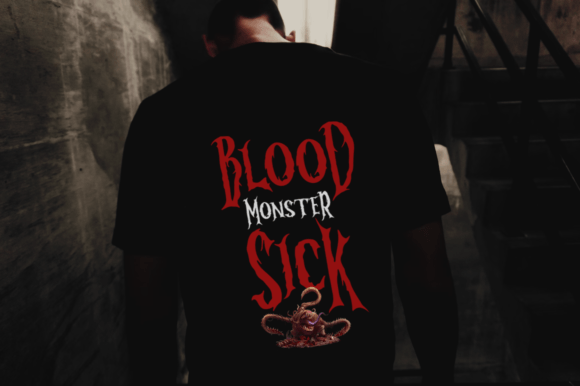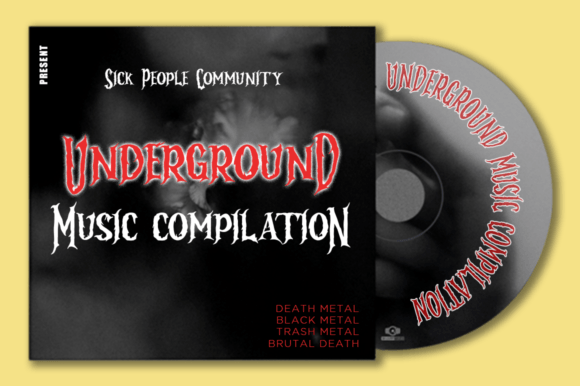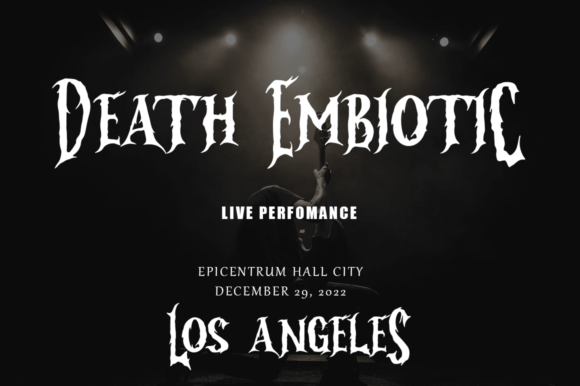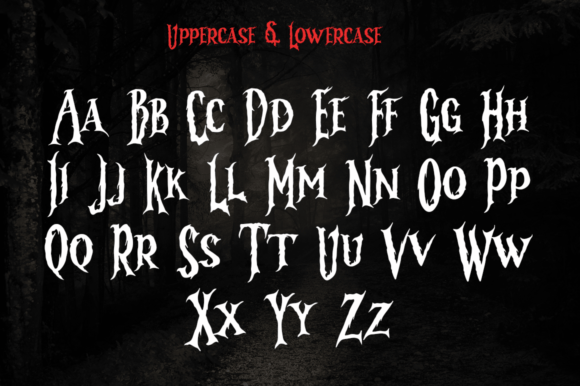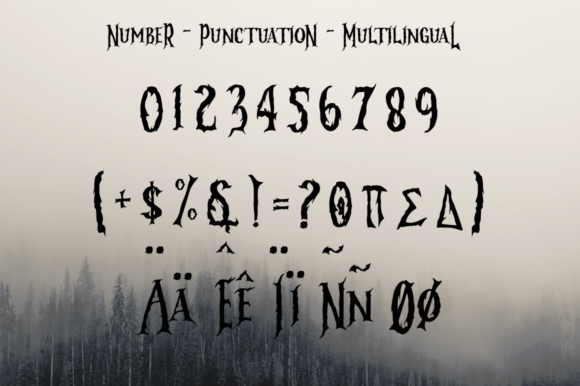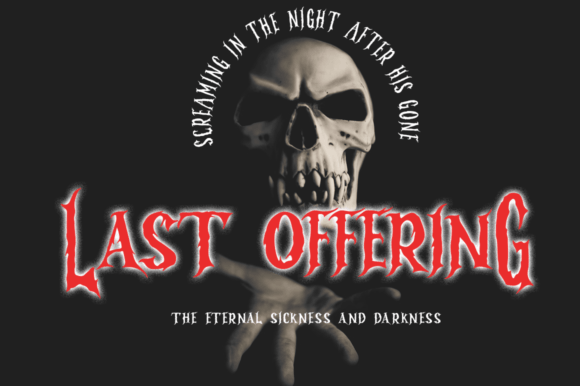
The Ultimate Design Hack for Music Lovers: Danger Night Font
I’ll never forget the time I was working on a project for a local band’s album cover. I had the design concept nailed, but I was struggling to find the perfect font to capture the edgy, rebellious vibe of their music. That’s when I stumbled upon the Danger Night Font, and it was love at first sight! 💡
As a designer, crafty person, or creative hobbyist, you’re probably always on the lookout for fonts that can help elevate your designs. If you’re a fan of loud music or own a band, this cool blackletter font is a game-changer. In this article, we’ll dive into the world of Danger Night Font, exploring its features, how to use it, and some awesome alternatives.
So, what makes Danger Night Font so special? Here are some things I love about it:
- ✨ Unique and edgy design: This font is perfect for creating bold, eye-catching designs that scream rock ‘n’ roll!
- ✅ Highly versatile: Use it for posters, merchandise, album covers, logos, and more – the possibilities are endless!
- 🔥 Perfect for music-related designs: Whether you’re a music lover or a band owner, this font speaks to you.
Of course, no font is perfect, and Danger Night Font has a few quirks:
- 🤔 Limited use in formal designs: This font is bold and edgy, so it might not be the best fit for more formal or traditional designs.
- ⚠️ Some letters may require manual kerning: As with any font, you might need to adjust the kerning to get the perfect look.
Legend has it that the creator of Danger Night Font was a huge fan of rock music and wanted to design a font that captured the raw energy and rebellious spirit of the genre. With inspiration from classic blackletter fonts and a dash of modern flair, Danger Night Font was born.
| Font Name | Danger Night Font |
| Author | Absonstype |
| What type of designs is Danger Night Font best suited for? | Danger Night Font is perfect for posters, merchandise, album covers, logos, and any other design that needs a bold, edgy vibe. |
| What are some common OpenType features in Danger Night Font? | Danger Night Font features a range of OpenType features, including glyphs, stylistic alternates, and more. |